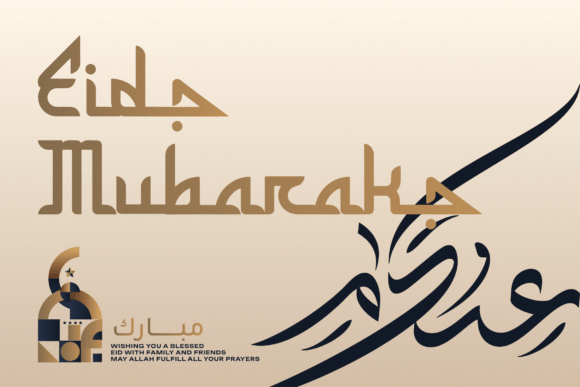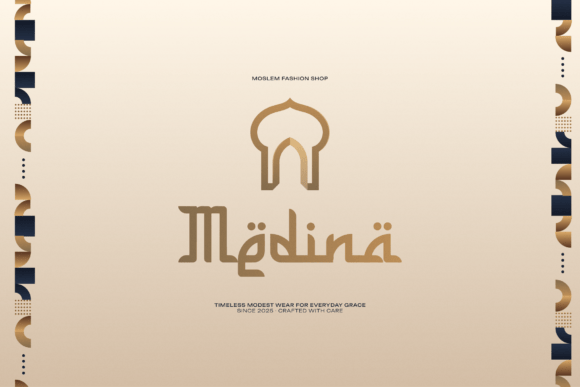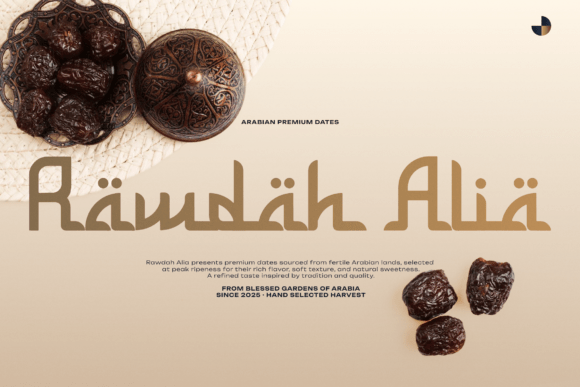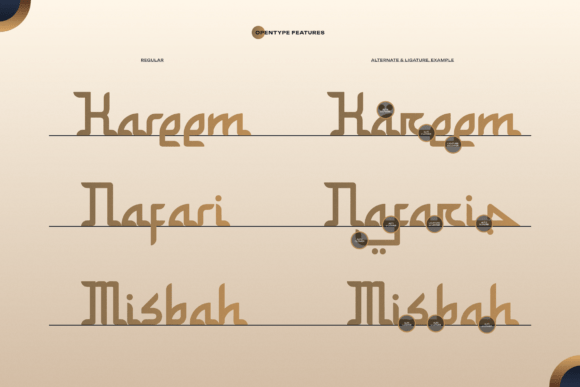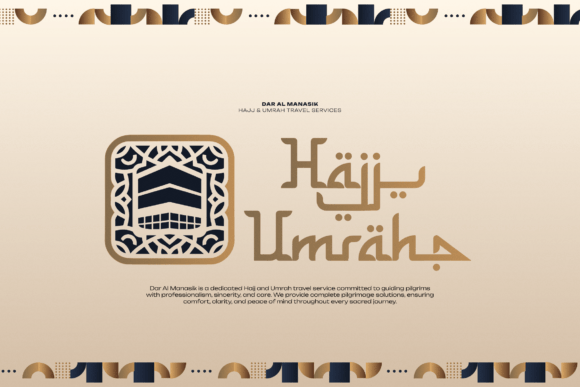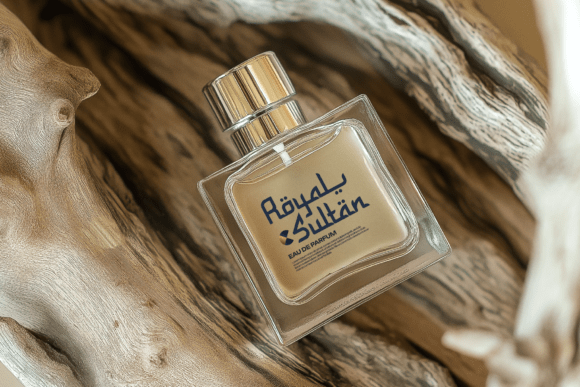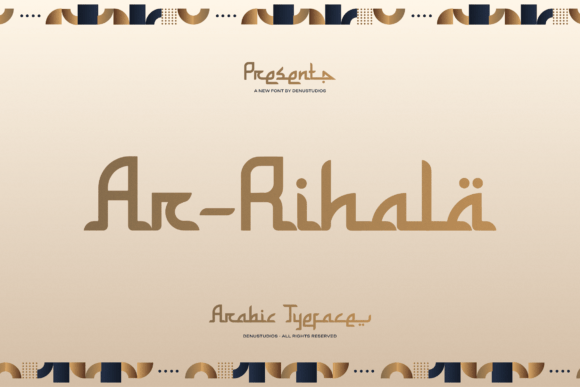
Discover the Elegance of Ar-Rihala Font: A Stunning Arabic-Style Typeface
In the realm of typography, few fonts manage to capture the essence of traditional Arabic calligraphy while exuding a modern, sophisticated vibe. Ar-Rihala font, however, achieves this delicate balance with remarkable finesse. This stunning Arabic-style typeface is designed to bridge the gap between conventional calligraphy and contemporary display design, making it an exceptional choice for a variety of creative projects.
The Distinctive Features of Ar-Rihala Font
Ar-Rihala typeface boasts fluid, organic connections and geometric foundations, which collectively imbue it with a rhythmic, almost hypnotic quality. The fluid strokes and intricate ligatures reflect the beauty of Arabic calligraphy, while the geometric underpinnings lend a sense of structure and modernity. This blend of traditional and contemporary elements makes Ar-Rihala a versatile font suitable for a wide range of applications.
Ideal Applications for Ar-Rihala Font
Given its unique aesthetic, Ar-Rihala font is perfectly suited for branding projects that aim to incorporate a Middle Eastern touch. Some of the ideal applications include:
- Islamic Art and Culture: The font’s Arabic-style calligraphy makes it an excellent choice for projects related to Islamic art, cultural events, and religious publications.
- Luxury Product Packaging: The elegant and sophisticated look of Ar-Rihala font makes it suitable for luxury product packaging, particularly for brands that want to convey a sense of heritage and tradition.
- Ramadan-Themed Marketing: The font’s unique aesthetic makes it an excellent choice for Ramadan-themed marketing materials, such as posters, social media graphics, and email campaigns.
Design Versatility and Pairing Suggestions
Ar-Rihala font offers a unique “Arabesque” aesthetic that works beautifully in large sizes for posters, book covers, and other display materials. To create a visually appealing design, consider pairing Ar-Rihala with a simple, high-contrast serif font. This combination will result in a design that feels both historically rooted and modernly sophisticated.
Why Choose Ar-Rihala Font?
For designers and crafters looking for a font that combines traditional Arabic calligraphy with modern design elements, Ar-Rihala is an exceptional choice. Here are a few reasons why:
- Unique Aesthetic: Ar-Rihala font boasts a distinctive, elegant look that sets it apart from other Arabic-style typefaces.
- Versatility: The font’s versatility makes it suitable for a wide range of applications, from branding and packaging to posters and book covers.
- Cultural Significance: Ar-Rihala font is an excellent choice for projects that aim to incorporate a Middle Eastern touch, making it a great way to add cultural significance to your design.
In conclusion, Ar-Rihala font is a stunning Arabic-style typeface that offers a unique blend of traditional calligraphy and contemporary design elements. Its fluid, organic connections and geometric foundations make it a versatile font suitable for a wide range of creative projects. Whether you’re working on a branding project, luxury product packaging, or Ramadan-themed marketing materials, Ar-Rihala font is an excellent choice. With its distinctive aesthetic and versatility, Ar-Rihala is sure to elevate your design to the next level.